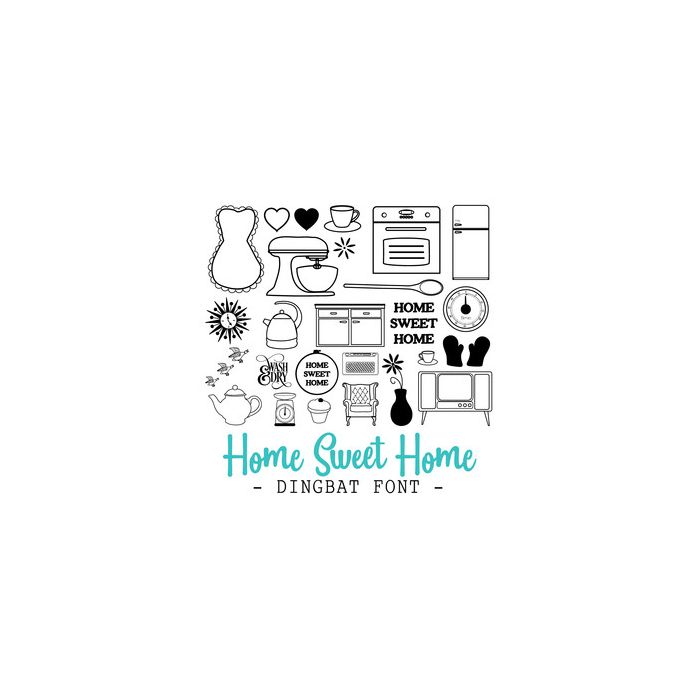
Home Sweet Home Dingbat Font. Includes 26 retro home and kitchen themed images, perfect for card making sentiments, inserts, scrapbooking, gifts and more!. All are assigned to an upper case letter starting with 'A' or can be accessed via glyphs. For more design ideas, coordinating designs & products and inspiration, please visit my blog http://www.sarahhurleyblog.com